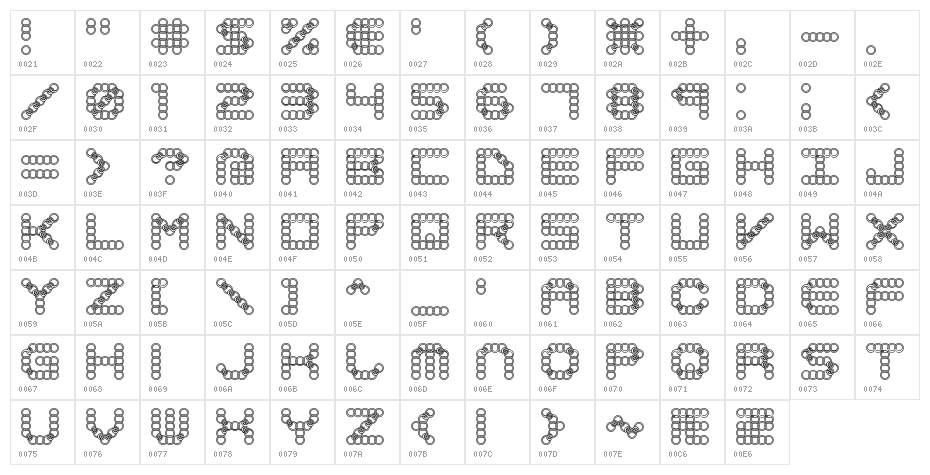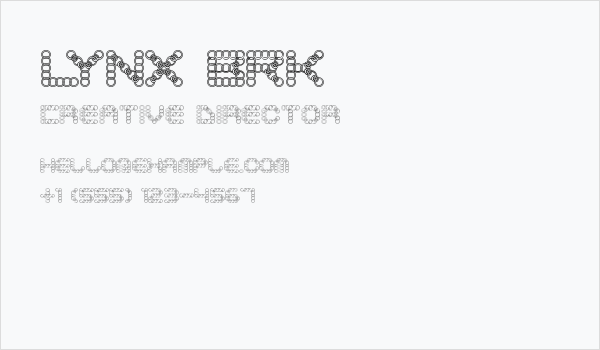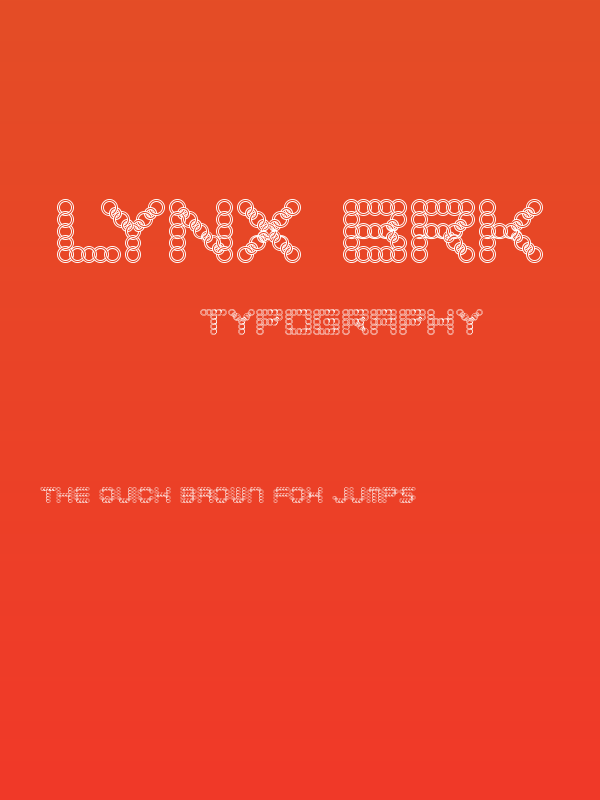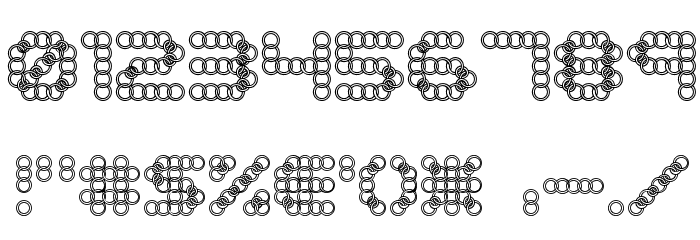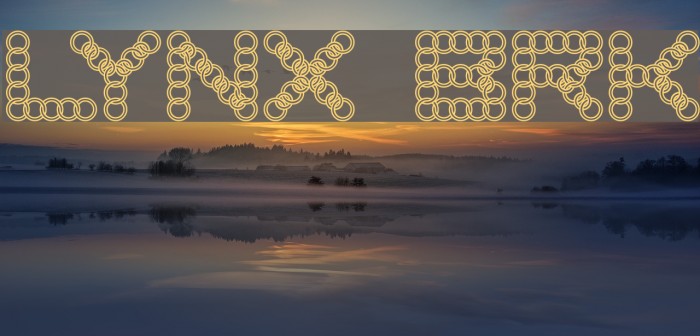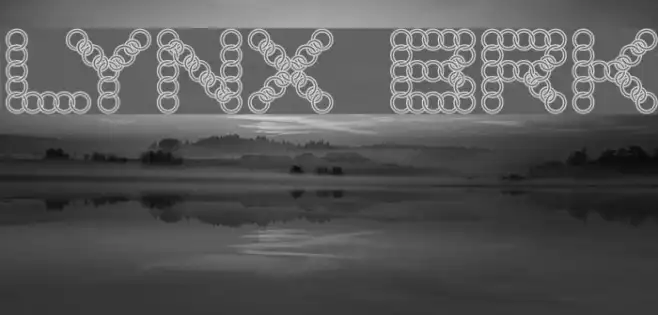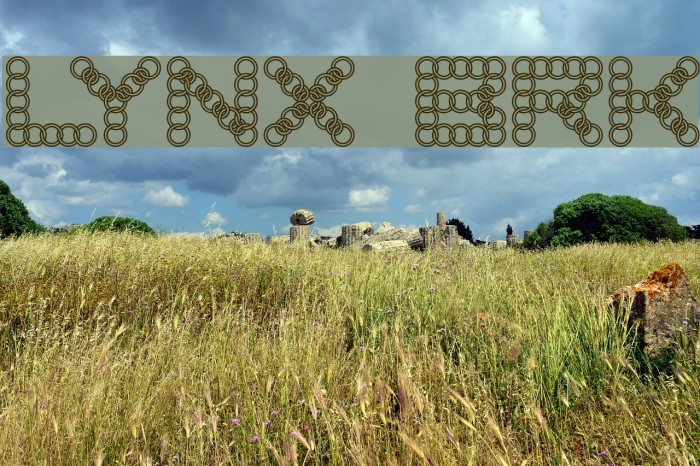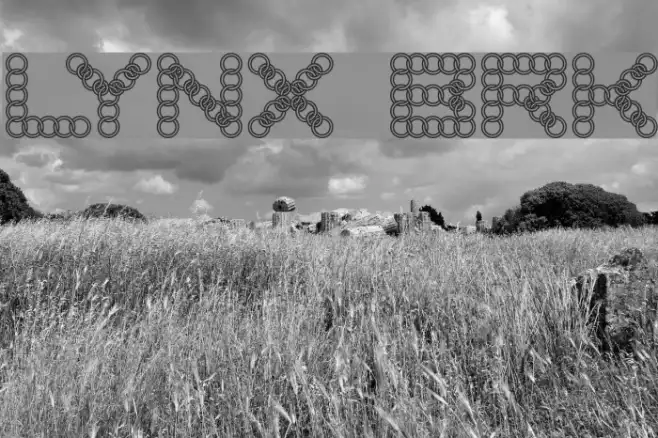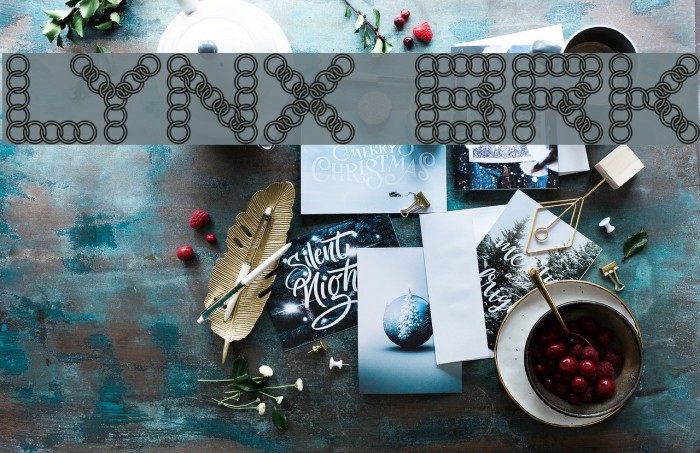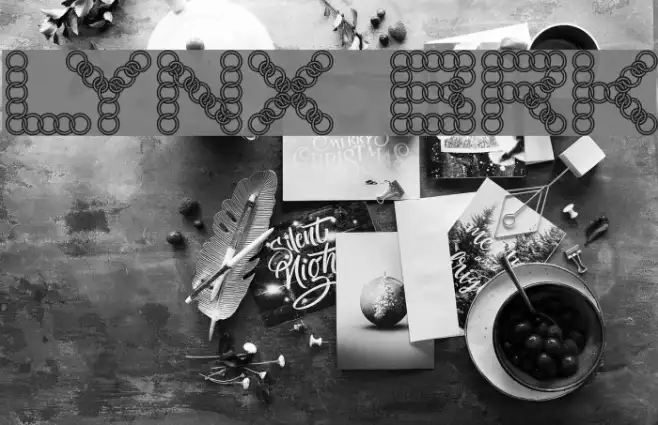
LYNX BRK Font
LYNX BRK Description
This font features a unique and playful design composed entirely of interconnected circles forming each character. The geometric style gives it a modern and decorative appearance, making it stand out in any design project. The characters are consistent in their circular motif, providing a cohesive look across uppercase, lowercase, numbers, and special symbols. This font is ideal for creative projects that require a distinctive and eye-catching typeface.
| Use Case | Logos, Headlines, Posters |
| Proposed Projects | Ideal for posters, logos, and creative branding projects that seek a unique and modern aesthetic. |